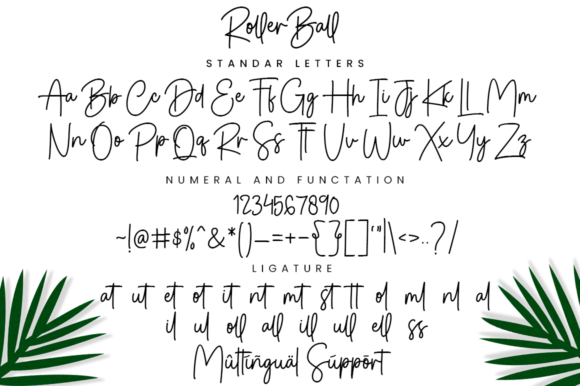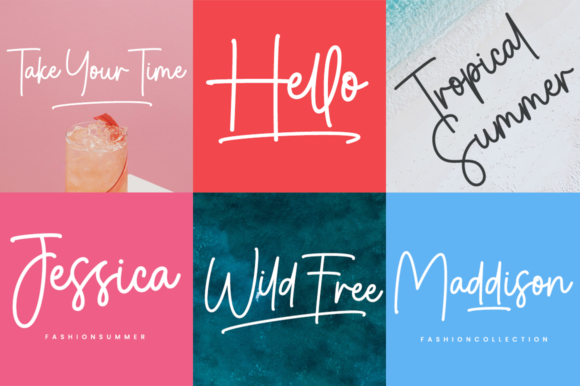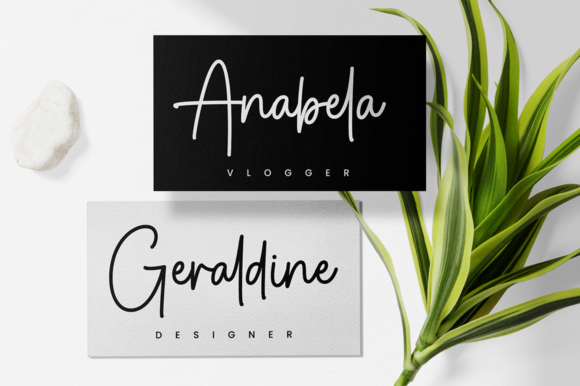
Introduction to Roller Ball Font
There’s something special about the feeling of putting pen to paper, watching your creative ideas come to life as you write. The flow of the words, the curves of the letters, it’s a true connection to the art of handwriting. For designers, this feeling is what makes the Roller Ball Font so captivating. This exquisite handwritten font is a masterful blend of classic calligraphy and modern flair, making it the perfect addition to any creative project.
Whether you’re working on a personal project or a high-quality design for a client, the Roller Ball Font is a valuable resource that will elevate your work to the next level. Its PUA encoding means that you can easily access all of the glyphs and swashes, giving you the flexibility to create unique and eye-catching designs. With its transparent background and free download option, it’s no wonder why designers are falling in love with this font.
Key Features of Roller Ball Font
- Unique, hand-drawn design with a high level of detail, making it a valuable design resource for creative projects.
- Includes a wide range of characters, including uppercase and lowercase letters, numbers, and punctuation marks, making it a versatile design resource.
Honest Review: Roller Ball Font
I recently stumbled upon the Roller Ball Font while searching for a fun and quirky design resource for a creative project. I was excited to dive in and see what this font had to offer.
- High-quality design: The Roller Ball Font is visually appealing and perfect for adding a playful touch to your design.
- Limited font styles: While the Roller Ball Font is great for a single design project, it might not be the best choice for a long-term design project that requires multiple font styles.
- Not suitable for formal designs: The playful nature of this font makes it less suitable for formal or professional designs.
Overall, I’m impressed with the Roller Ball Font and would definitely use it again for a creative project that requires a fun and quirky touch. It’s a great design resource to have in your library, and the free download makes it a great value.
Common Use Cases for Roller Ball Font
The Roller Ball Font is a versatile design resource that can be used in a variety of creative projects, including logos, business cards, and social media graphics. You can also use the font in combination with other design elements, such as images and shapes, to create a unique and eye-catching design.